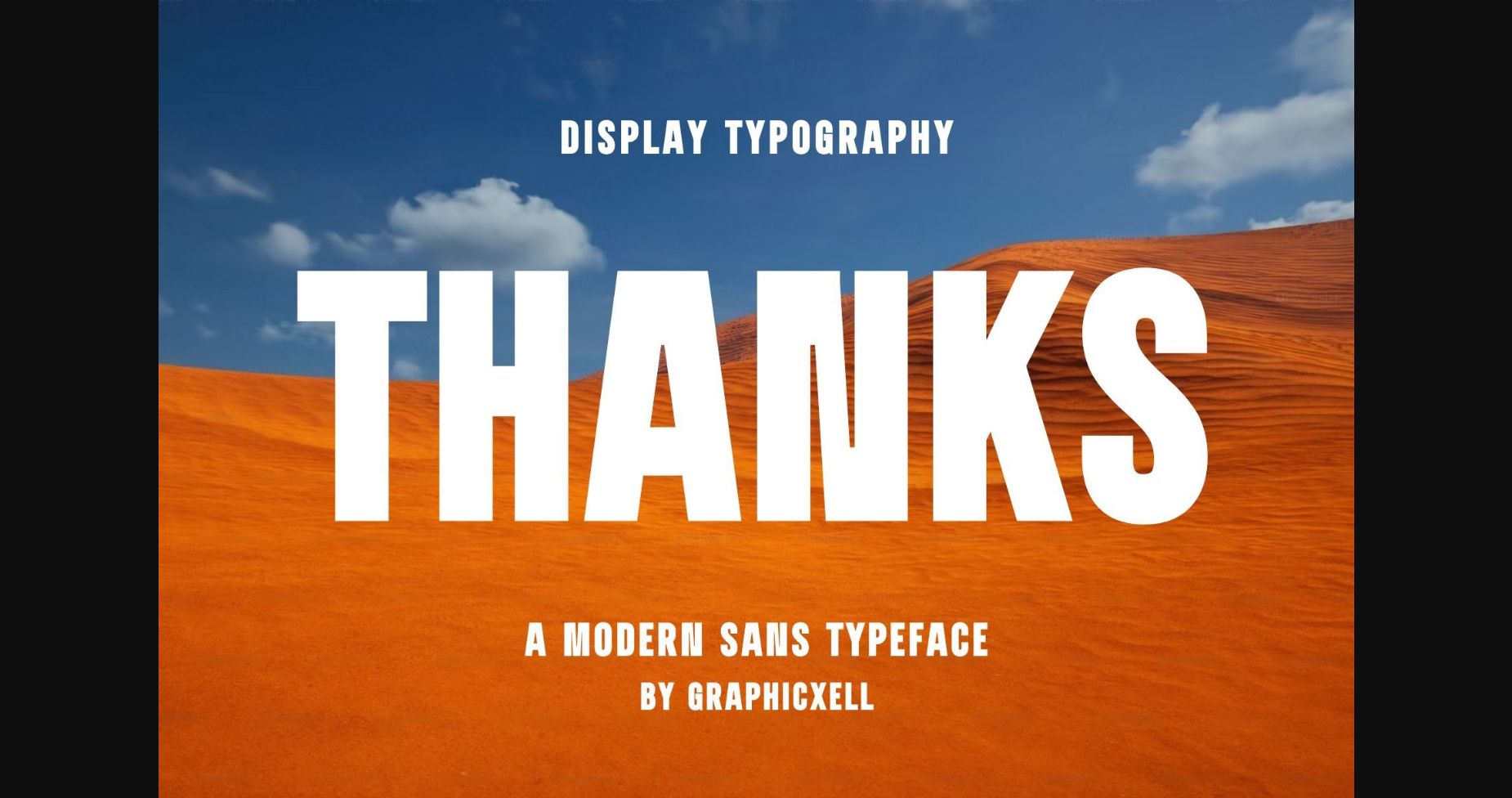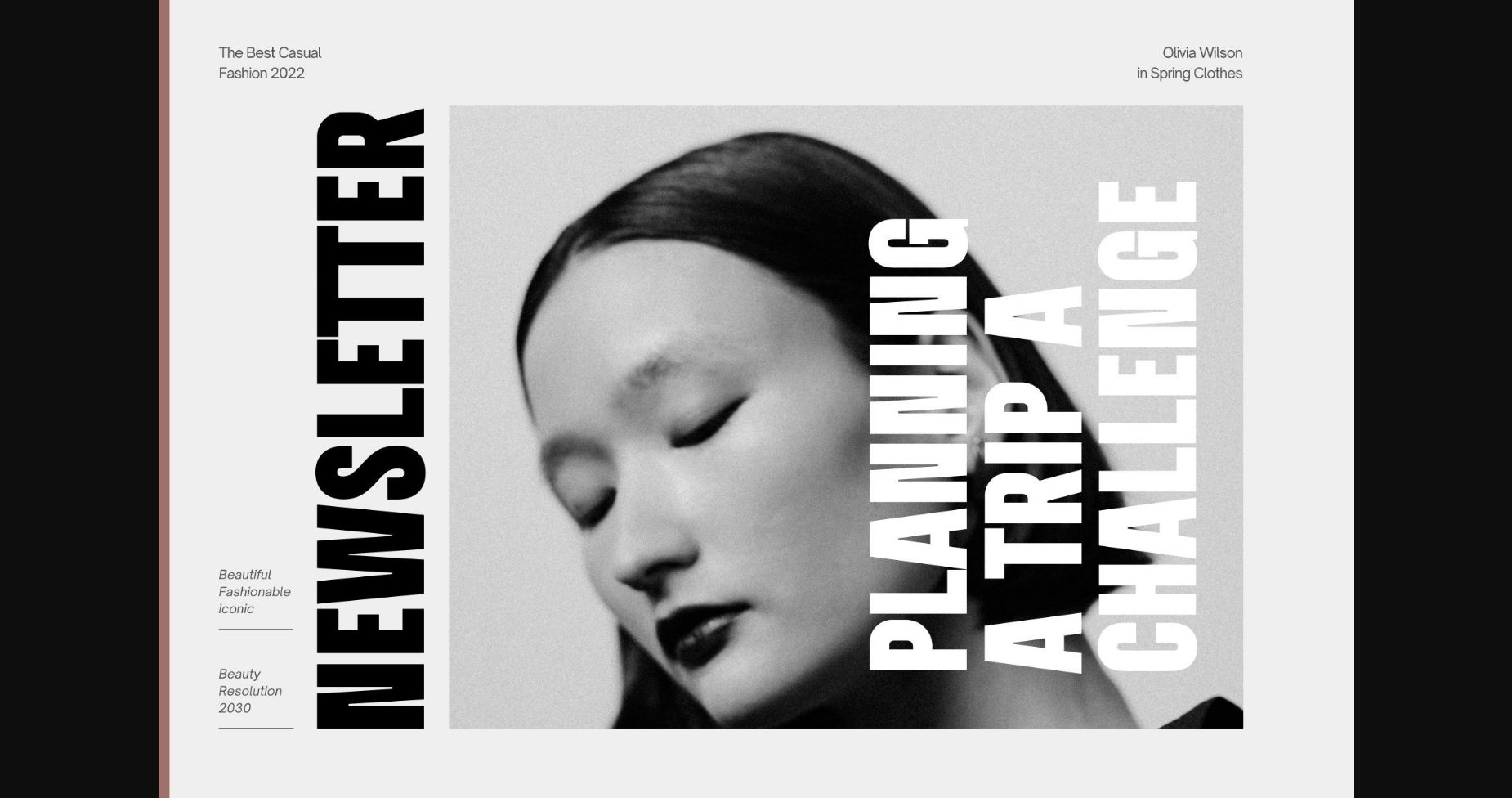
About Thanks Font
Thanks Bold Sans Serif Typeface inspired by the famous minimalist logo perfect for the purposes of designing templates, brochures, videos, advertising branding, logos, invitation, layout design, elegant crafting, beauty design and other